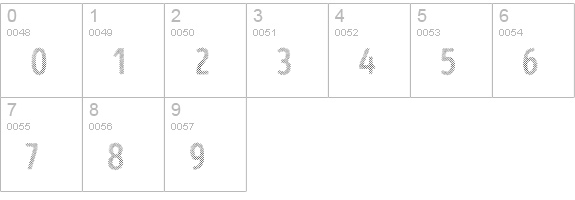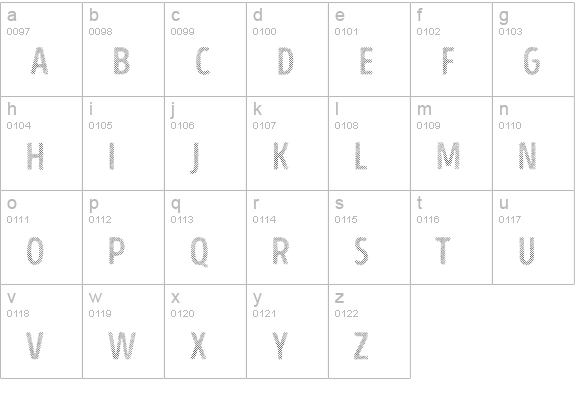
Intro Head H UC H1 Font Details
The Intro Head H UC H1 font is a modern and elegant typeface that exudes sophistication and style. Its clean lines and sharp edges make it perfect for creating impactful headings and titles. This font is versatile and can be used in a variety of design projects, from website headers to print materials. What sets Intro Head H UC H1 font apart is its unique and eye-catching design, making it stand out from the crowd. Whether you're designing a poster, flyer, or logo, this font will help you make a statement and leave a lasting impression. Best of all, Intro Head H UC H1 font is available for free download at FontsMarket.com. This means you can access this high-quality font without having to spend a penny. Don't miss out on this opportunity to elevate your design projects with the Intro Head H UC H1 font. Download it today and start creating stunning visuals that will captivate your audience.